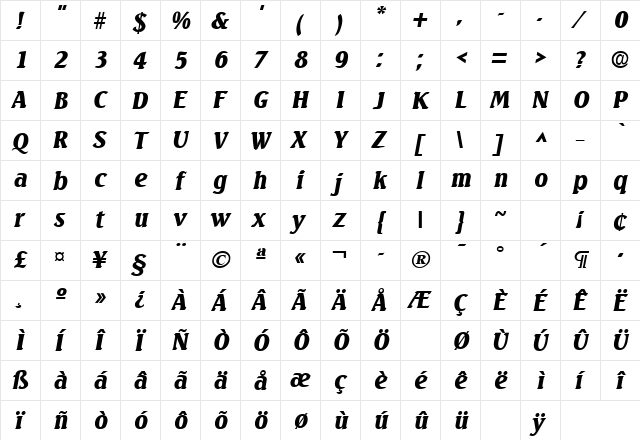
Seagull Bold Italic
Design Context for Seagull Typeface
Seagull takes a measured approach to typography — its balanced proportions and neutral character make it a reliable workhorse for both digital and print work. The dynamic lean of this cut emphasises speed and emphasis in any layout. The heavy weight commands attention and anchors typographic hierarchies.
Pro Tip: Use Seagull for emphasis, pull quotes, and subheadings where its slanted energy can add rhythm to the layout.